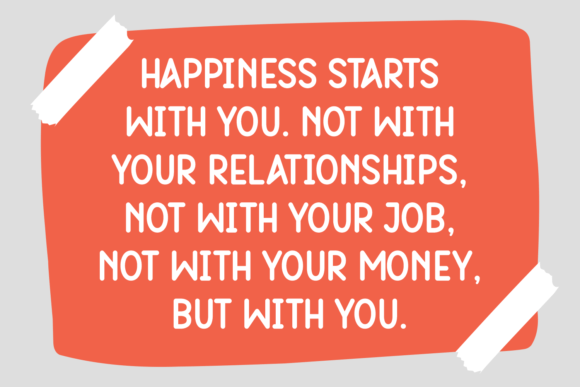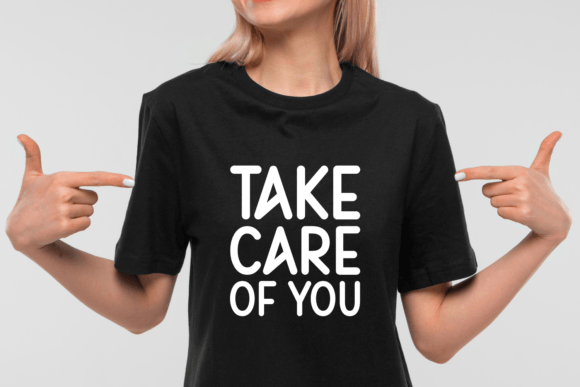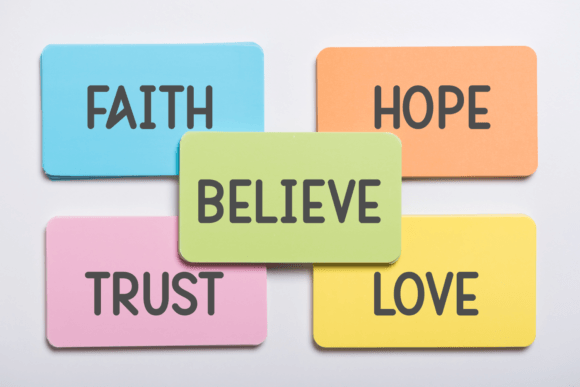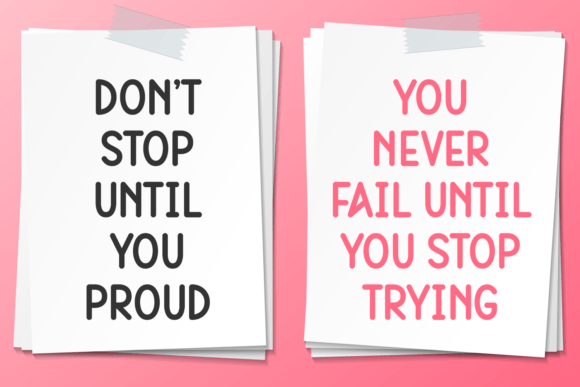
Introduction to Mentary Font
Have you ever been working on a creative project, pouring your heart and soul into it, only to be stuck on finding the perfect font to bring it all together? That’s when the search begins – scrolling through endless options, testing different styles, and hoping to stumble upon the one that captures the essence of your design. But what if I told you that your search is over?
Meet the Mentary Font, a game-changing addition to any designer’s toolkit. This stunning Sans Serif typeface is more than just a font – it’s a design resource that’s sure to elevate your projects to the next level. With its crisp lines, unique character, and high-quality aesthetic, Mentary Font is the perfect choice for crafting thoughtful quotes, designing event materials, or creating distinctive product packaging.
Key Features of Mentary Font
- High-quality, professional design for creative projects, ideal for presentations, reports, and documents.
- Comes with a transparent background, allowing for seamless integration with any design or image.
- Designed to be highly legible at various resolutions, including 72 dpi and 300 dpi.
- Supports multiple languages, making it a versatile design choice for global projects.
- Unique, modern style that sets it apart from other fonts, perfect for adding a touch of elegance to any creative project.
Honest Review: Mentary Font
I recently stumbled upon the Mentary Font, and I must say it’s been a game-changer for my creative projects. As a designer, I’m always on the lookout for high-quality design resources that can elevate my work, and Mentary Font definitely delivers.
- ✨ High-quality glyphs: The Mentary Font boasts a wide range of glyphs, ensuring that you’ll find the perfect character for your project.
- ✨ Transparent background: This feature makes it easy to place the font over any background image, giving you complete creative control.
However, I did encounter a few limitations. ⚠️ The font doesn’t come with a comprehensive user manual, which can make it difficult to navigate for beginners. Additionally, the font’s weight may not be suitable for all design projects, particularly those requiring a bold or condensed style.
Overall, I’m impressed with the Mentary Font. Its high-quality glyphs and transparent background make it an excellent design resource. While it may have some limitations, the benefits far outweigh the drawbacks. I’d definitely recommend it to any designer looking for a reliable and versatile font for their creative projects.
Mentary Font
Tips for Getting the Most Out of Mentary Font
For optimal results, use the Mentary Font in conjunction with other design elements, such as images and graphics. Experiment with different font sizes and styles to create a unique and engaging design. Also, consider using the font on a transparent background to create a seamless look.
The Mentary Font is ideal for use in a variety of creative projects, including logos, business cards, and marketing materials. Its transparent background feature makes it perfect for use in designs where a seamless look is desired. Additionally, the font’s high-quality features make it suitable for use in professional designs, such as presentations and documents.
Yes, the Mentary Font features a transparent background, making it perfect for designs that require a seamless integration with other elements. This high-quality design resource is ideal for creating visually appealing and professional-looking materials, including graphics, logos, and icons.